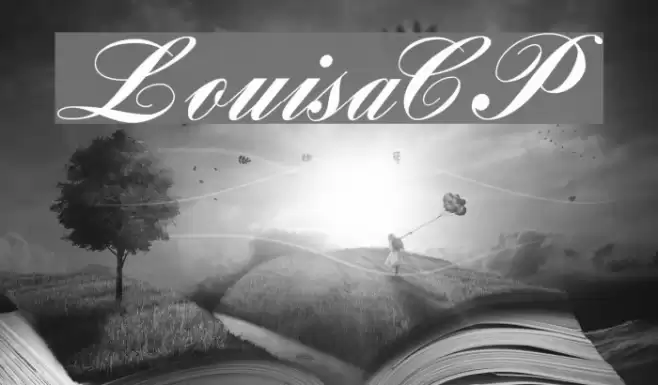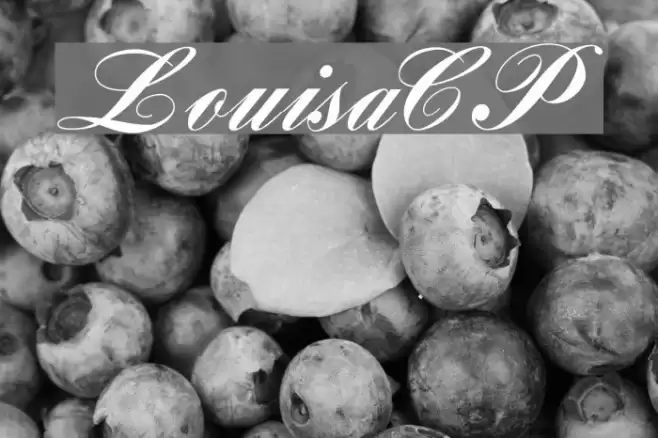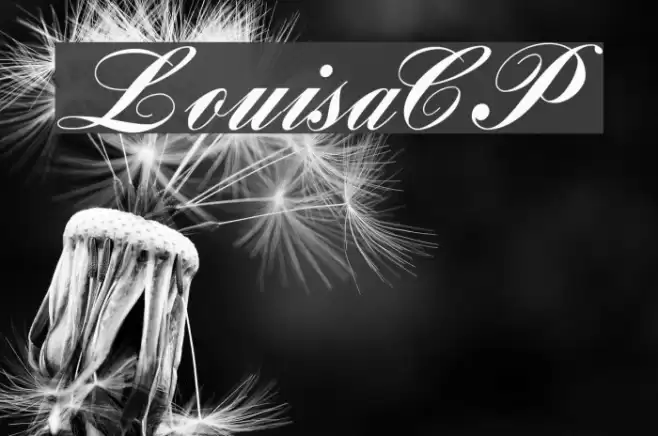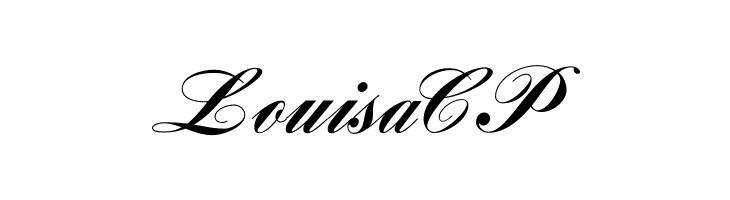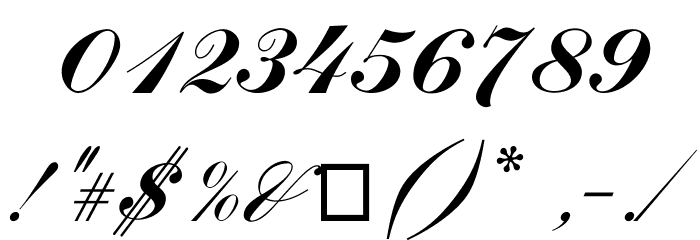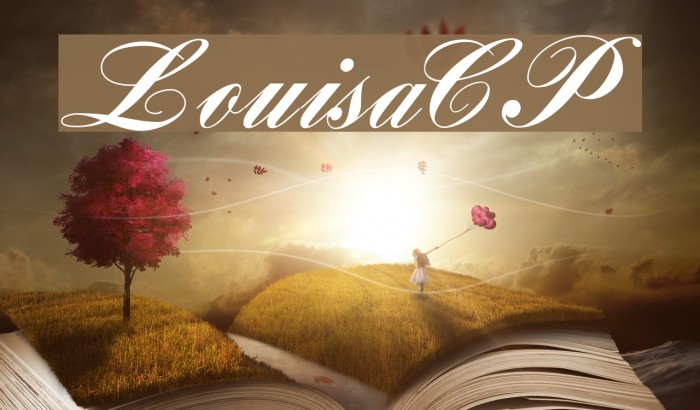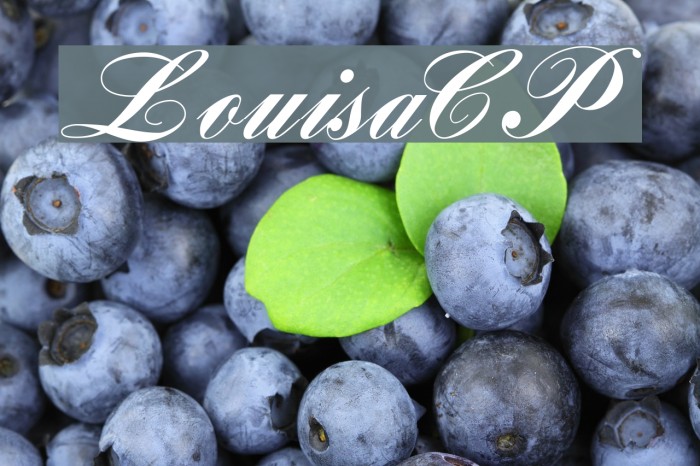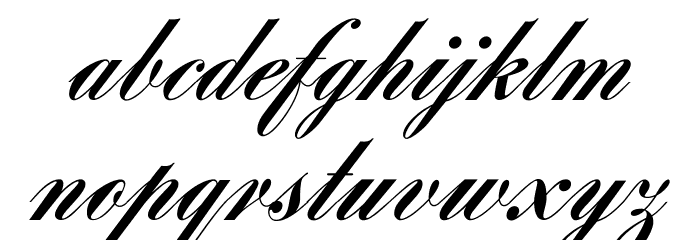
LouisaCP Font
LouisaCP Description
This elegant script font features flowing, cursive letters with high contrast between thick and thin strokes. The uppercase letters are ornate, with intricate loops and flourishes that add a touch of sophistication. The lowercase letters maintain a smooth, connected style that enhances readability while preserving the decorative nature of the font. Numbers and special characters are designed with the same attention to detail, making them suitable for a variety of applications. The font's overall appearance is both classic and stylish, making it ideal for formal invitations, branding, and other projects that require a touch of elegance.
An elegant script font with flowing, cursive letters and high contrast strokes from Uncategorized fonts.
- Proposed Projects: Ideal for wedding invitations, luxury branding, elegant stationery, and formal event programs.
- Overall Style: Classic
- Use Case: Logos, Invitations, Branding